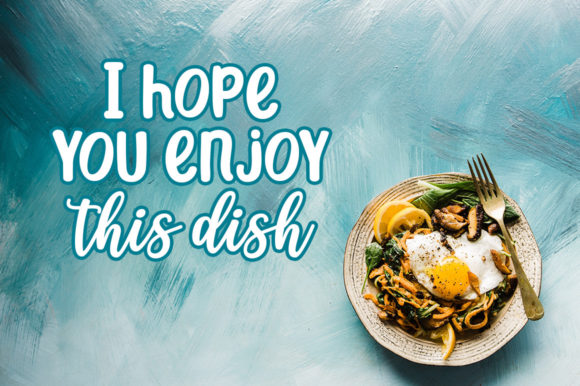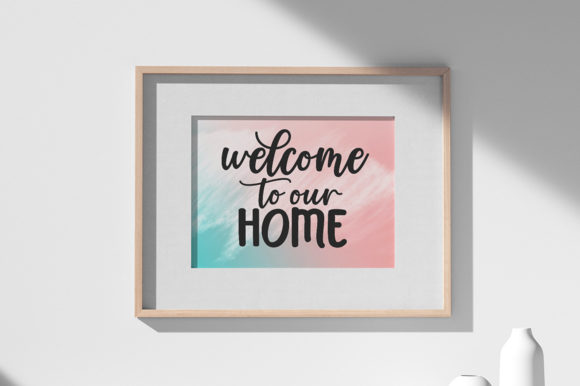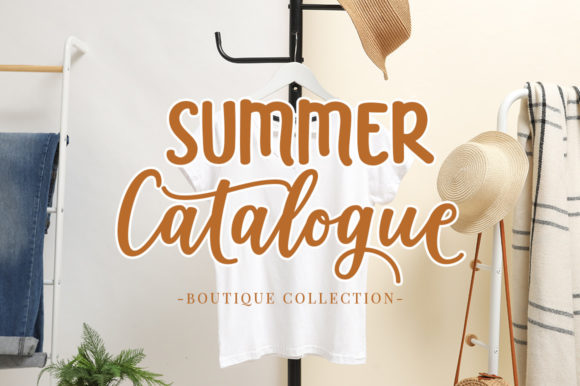
Introduction to Charming Mermaid Font
Charming Mermaid consists of two fonts designed to complement each other perfectly (script and sans serif).
Together or apart, these fonts are ideal for adding a chic and cheery touch to your crafts This font is PUA encoded which means you can access all glyphs and swashes with ease.
Key Features of Charming Mermaid Font